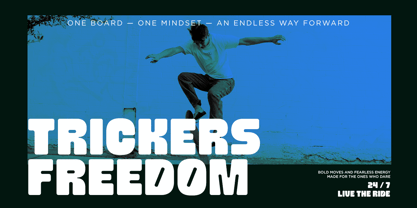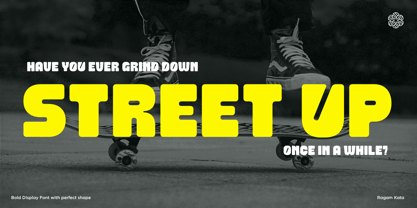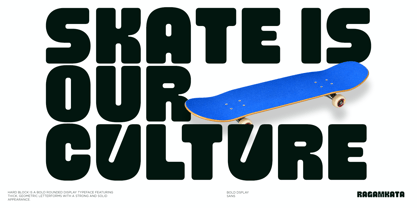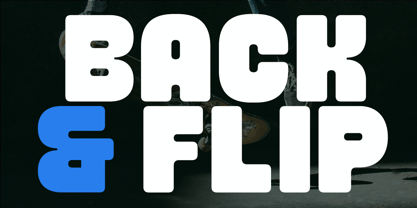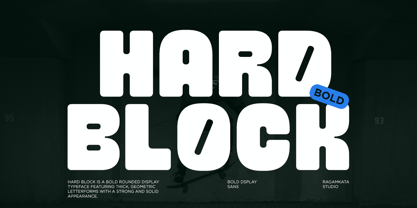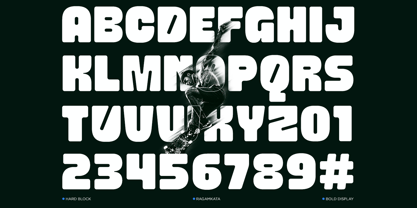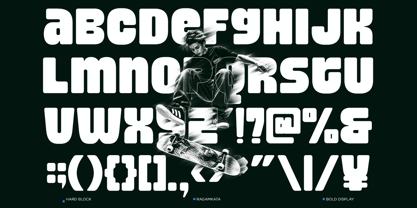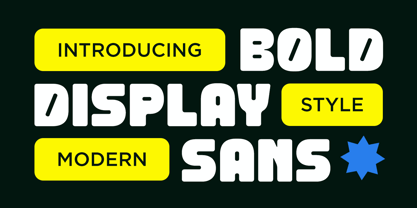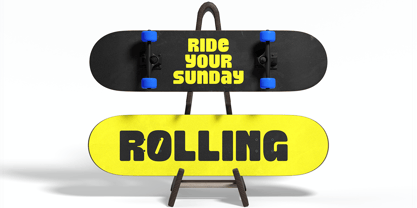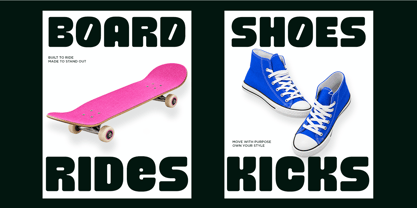
Hard Block
von RagamKata
Die Schriftfamilie Hard Block wurde von Yogiswhara Dio Prakoso Riadi entworfen und von RagamKata veröffentlicht. Hard Block enthält 2 Stile und Familienpaketoptionen. Mehr über diese Familie
Hard Block is a bold chunky display font built with powerful rounded shapes and a strong visual presence. Its compact letterforms and playful geometric construction create a distinctive look that instantly grabs attention, making it ideal for impactful headlines and large-scale typography.
Designed with a modern street-inspired character, Hard Block works especially well for skateboard graphics, sports branding, posters, logos, and advertising. Its bold silhouette gives designs a confident, energetic, and youthful personality.
From branding and packaging to editorial layouts and social media graphics, Hard Block brings a contemporary retro feel to any project. Use it for attention-grabbing headlines, display typography, merchandise, badges, promotional artwork, and creative visual identities that need a bold and memorable style.
Designer: Yogiswhara Dio Prakoso Riadi
Foundry: RagamKata